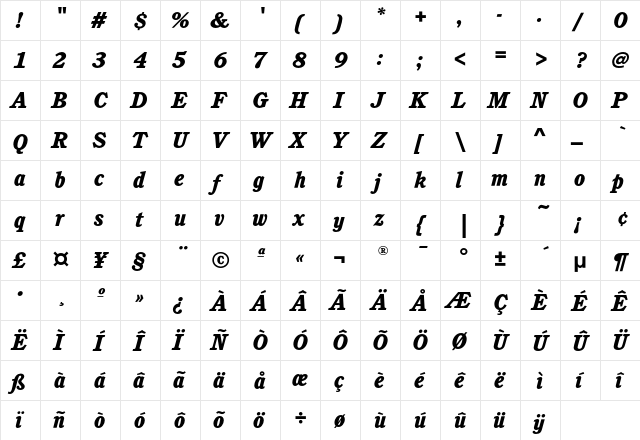
CushingEF-HeavyItalic Regular Font Preview
CushingEF-HeavyItalic Regular
Design Context for CushingEF-HeavyItalic Typeface
CushingEF-HeavyItalic takes a measured approach to typography — its balanced proportions and neutral character make it a reliable workhorse for both digital and print work. Its italic angle brings a sense of urgency and motion to the letterforms.
Pro Tip: Try CushingEF-HeavyItalic for annotation and caption copy alongside an upright companion — the contrast in angle creates a dynamic but ordered typographic system.